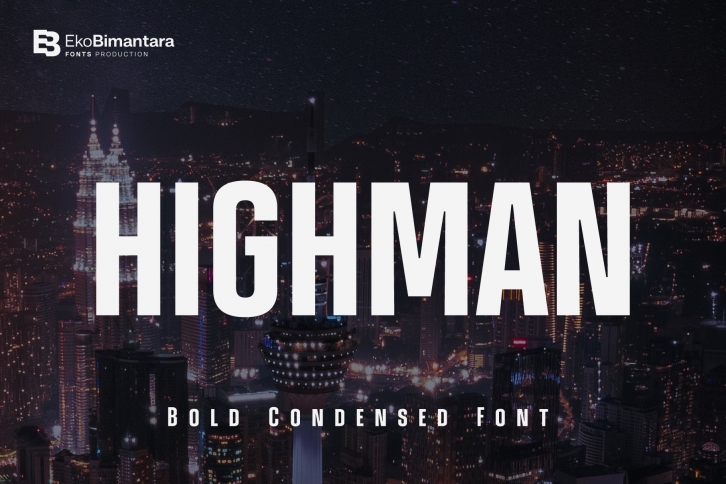
Highman is a beautiful font that was designed by Eko Bimantara. It's a great choice for designers and creatives who need such a font. It was released on September 4, 2021 and the file size is 14.47 MB. Highman may give a more youthful, expressive and casual look to your project. It is a very beautiful, refined, elegant, and high-quality font.